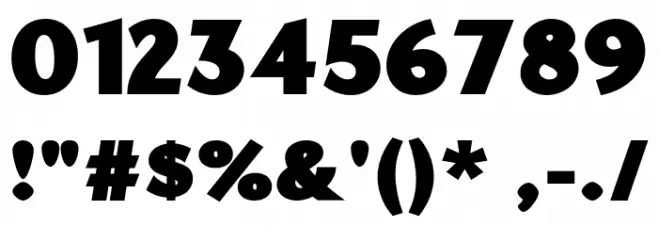
YorkieDEMO-ExtraBold Font
YorkieDEMO-ExtraBold Description
This font features a bold and impactful design with strong, thick strokes that convey a sense of power and confidence. The uppercase letters are particularly striking, with a uniform height and width that create a cohesive and balanced appearance. The lowercase letters maintain the boldness of the uppercase, with rounded edges that add a touch of softness to the overall look. The numerals are equally bold, ensuring they stand out clearly in any context. Special characters are designed with the same attention to detail, making them easily recognizable and functional. This font is ideal for projects that require a strong visual impact, such as headlines, posters, and branding materials.
- Proposed Projects: Ideal for headlines, posters, branding materials, and any project requiring a strong visual impact.